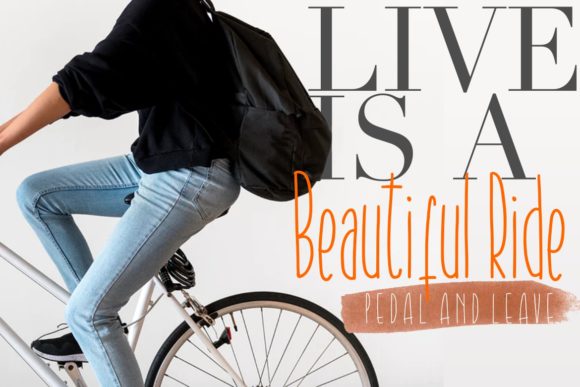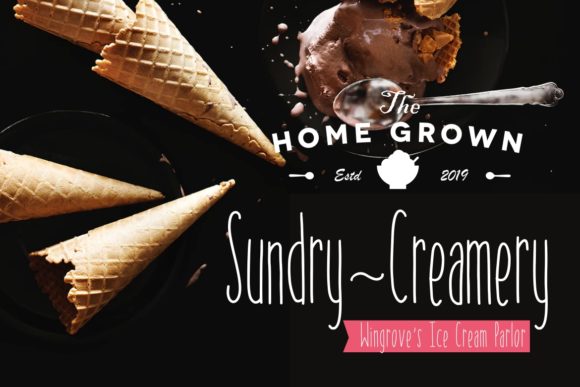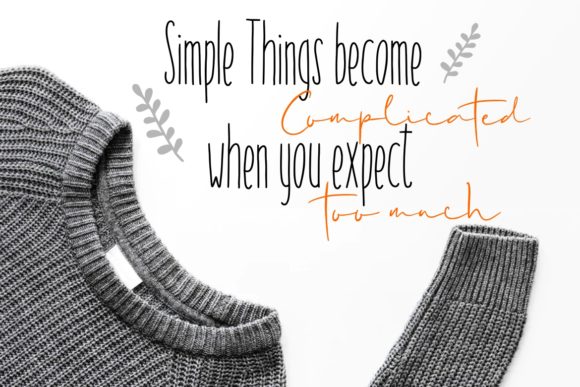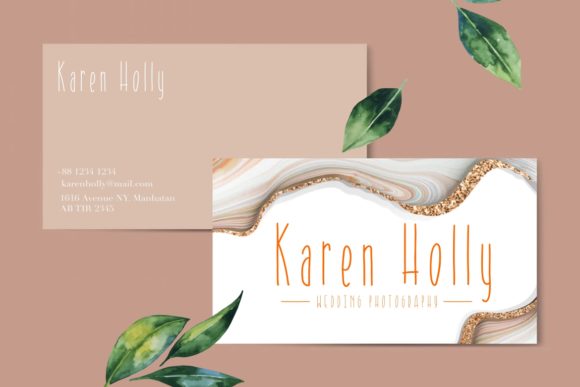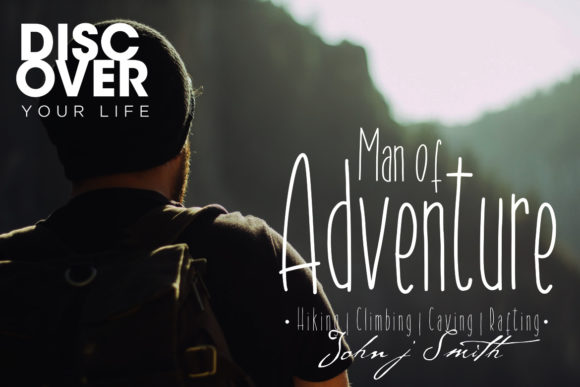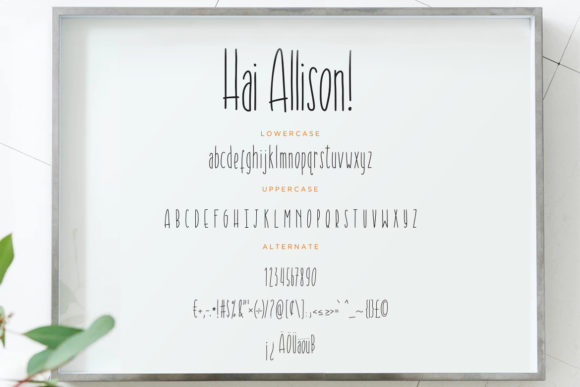
Introducing Hai Allison Font: The Ultimate Choice for Creative Projects
Are you tired of using the same old fonts for your creative projects? Look no further! Hai Allison Font is here to revolutionize the way you approach design. This fun and fresh display font is perfect for anyone looking to add a happy and cheerful vibe to their branding projects, logos, wedding designs, social media posts, advertisements, product packaging, and more!
What Makes Hai Allison Font So Special?
Hai Allison Font is a unique and versatile font that can be used for a wide range of creative projects. Its happy and cheerful vibe makes it perfect for designs that require a playful touch. Whether you’re working on a branding project, a wedding design, or a social media post, this font is sure to make your design stand out.
Hai Allison Font is a dream come true for designers and crafters. Its fresh and fun design makes it perfect for anyone looking to add a personal touch to their projects. With this font, you can create stunning designs that showcase your creativity and style.
The possibilities are endless with Hai Allison Font. Here are some ideas to get you started:
- Branding projects: Create a memorable brand identity with this unique font.
- Logos: Design a logo that stands out from the crowd.
- Wedding designs: Add a touch of happiness and joy to your wedding designs.
- Social media posts: Make your social media posts more engaging and fun.
- Advertisements: Create eye-catching advertisements that grab attention.
- Product packaging: Add a personal touch to your product packaging.
- Product designs: Create stunning product designs that showcase your brand’s personality.
- Labels photography: Add a creative touch to your labels and photography.
- Watermark: Create a unique watermark that reflects your brand’s style.
- Invitation: Design beautiful invitations that set the tone for your event.
- Stationery: Create stunning stationery that showcases your brand’s personality.
Why Choose Hai Allison Font?
So, why choose Hai Allison Font over other fonts? Here are just a few reasons:
- Unique design: Hai Allison Font has a unique and fresh design that sets it apart from other fonts.
- Versatility: This font can be used for a wide range of creative projects.
- High-quality: This font is of high quality, ensuring that your designs look professional and polished.
Tips for Using Hai Allison Font
Here are a few tips for using Hai Allison Font:
- Experiment with different colors: Hai Allison Font looks great in a variety of colors, so don’t be afraid to experiment.
- Pair it with other fonts: This font pairs well with other fonts, so try pairing it with a serif font for a unique look.
- Use it for headings: Hai Allison Font is perfect for headings and titles, so use it to add a touch of personality to your designs.
Hai Allison Font is a fun and fresh display font that’s perfect for creative projects. Its happy and cheerful vibe makes it perfect for designs that require a playful touch. With its versatility, ease of use, and high-quality design, this font is a must-have for designers and crafters. So, why wait? Download Hai Allison Font today and start creating stunning designs that showcase your creativity and style!